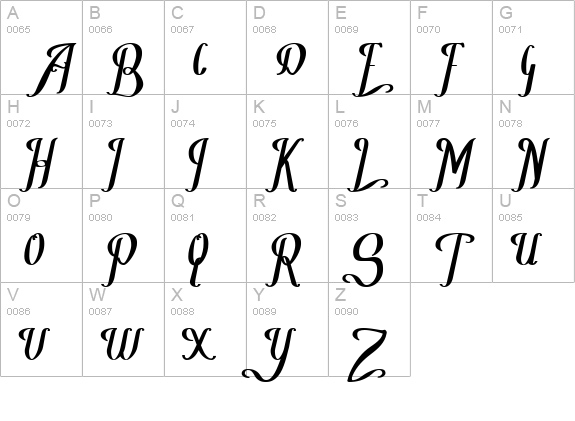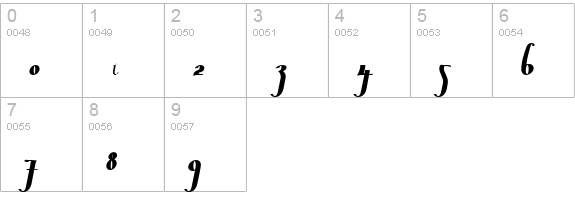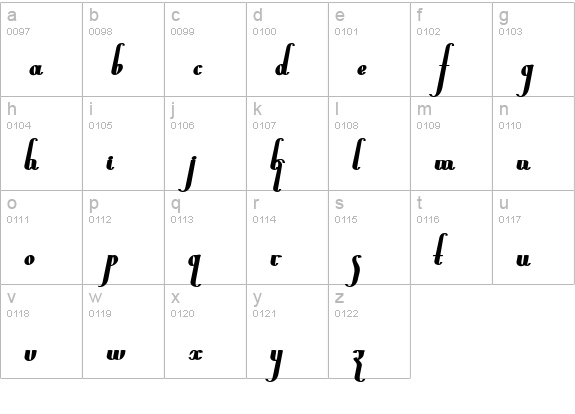
Chancera Bold is a strong, high-contrast variant in the Chancera typeface family \xE2\x80\x94 well suited to headlines, attention-grabbing titles, and strong calls-to-action.
Chancera Bold font is a modern and elegant typeface that exudes sophistication and style. With its clean lines and bold strokes, this font is perfect for making a statement in any design project. Whether you're creating a logo, poster, or branding materials, Chancera Bold will surely catch the eye of your audience. What sets Chancera Bold font apart is not only its striking appearance but also the fact that it is available for free download. That's right, you can get your hands on this stunning font at no cost from FontsMarket.com. Don't miss out on the opportunity to elevate your designs with Chancera Bold - download it now and start creating beautiful typography that stands out from the crowd.